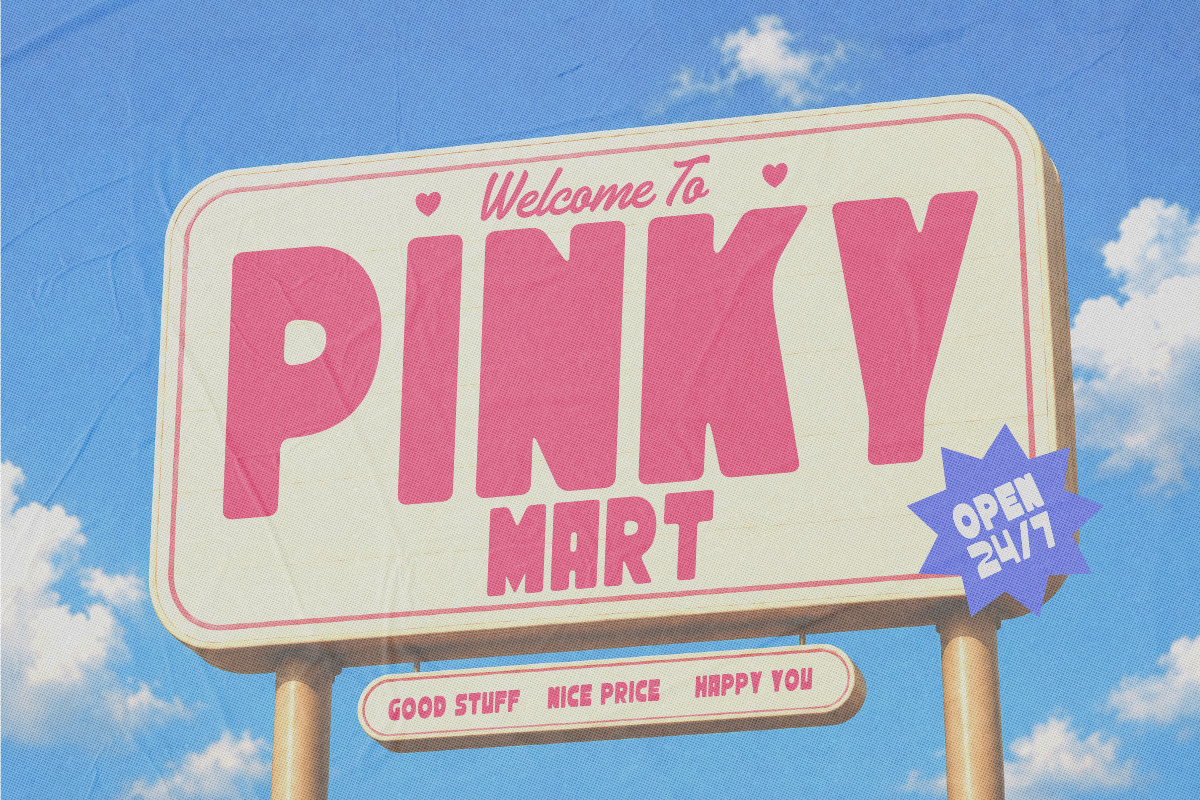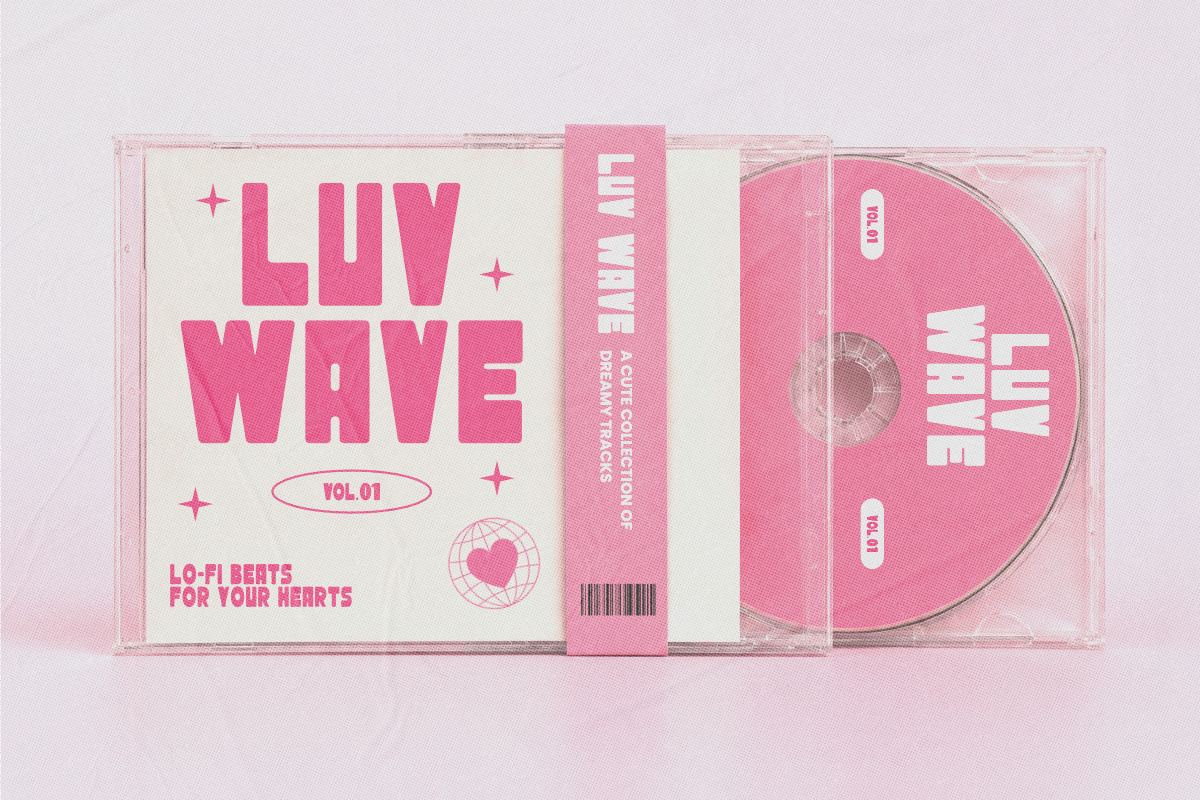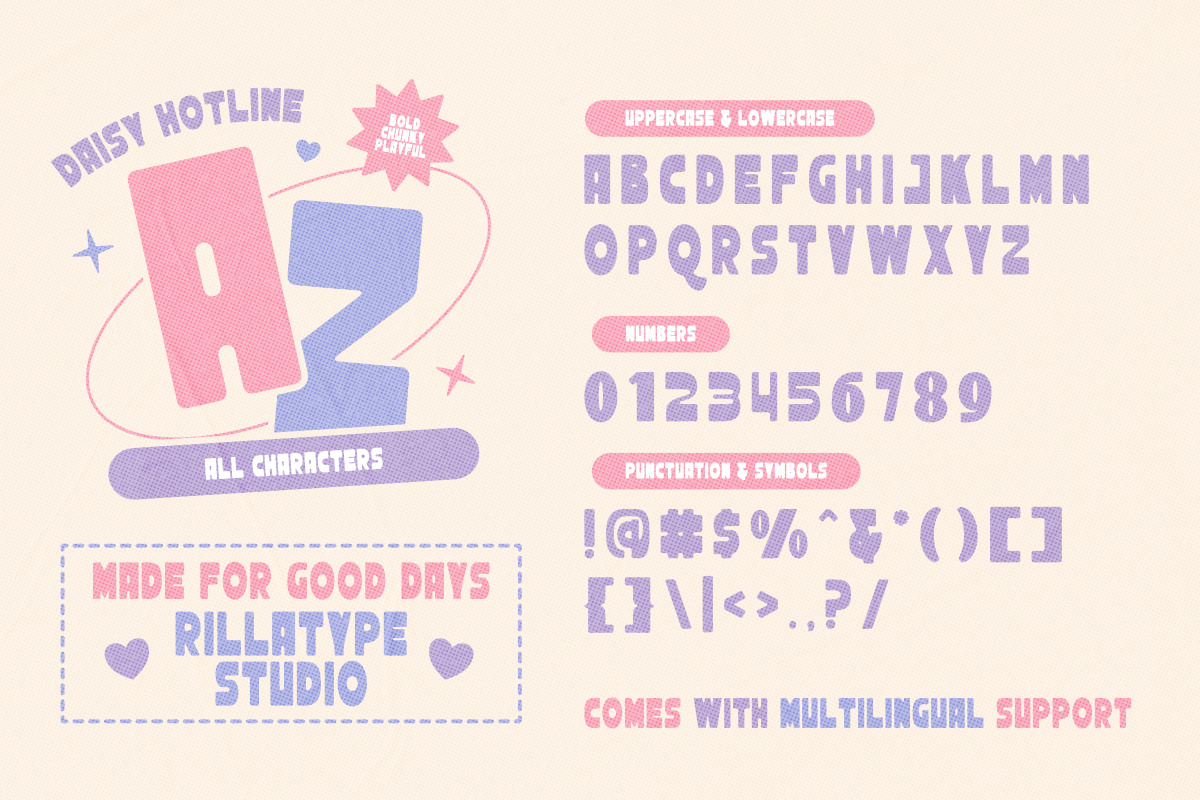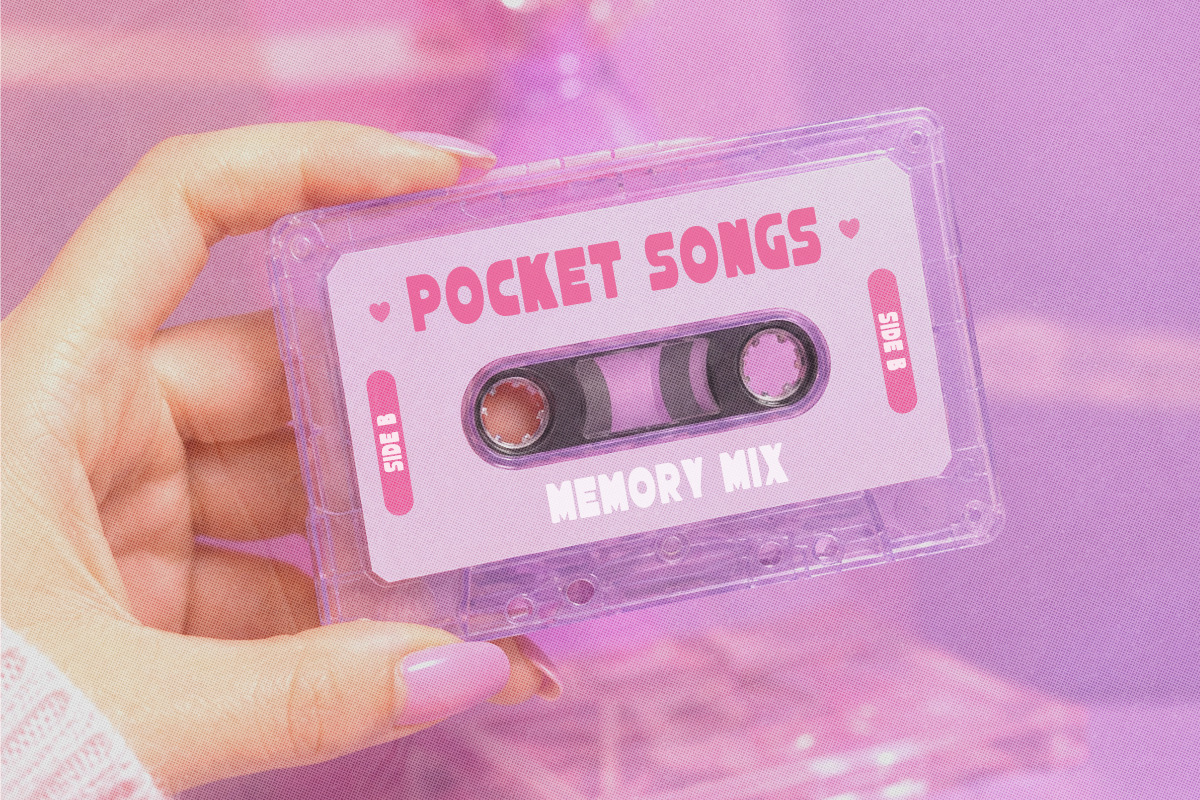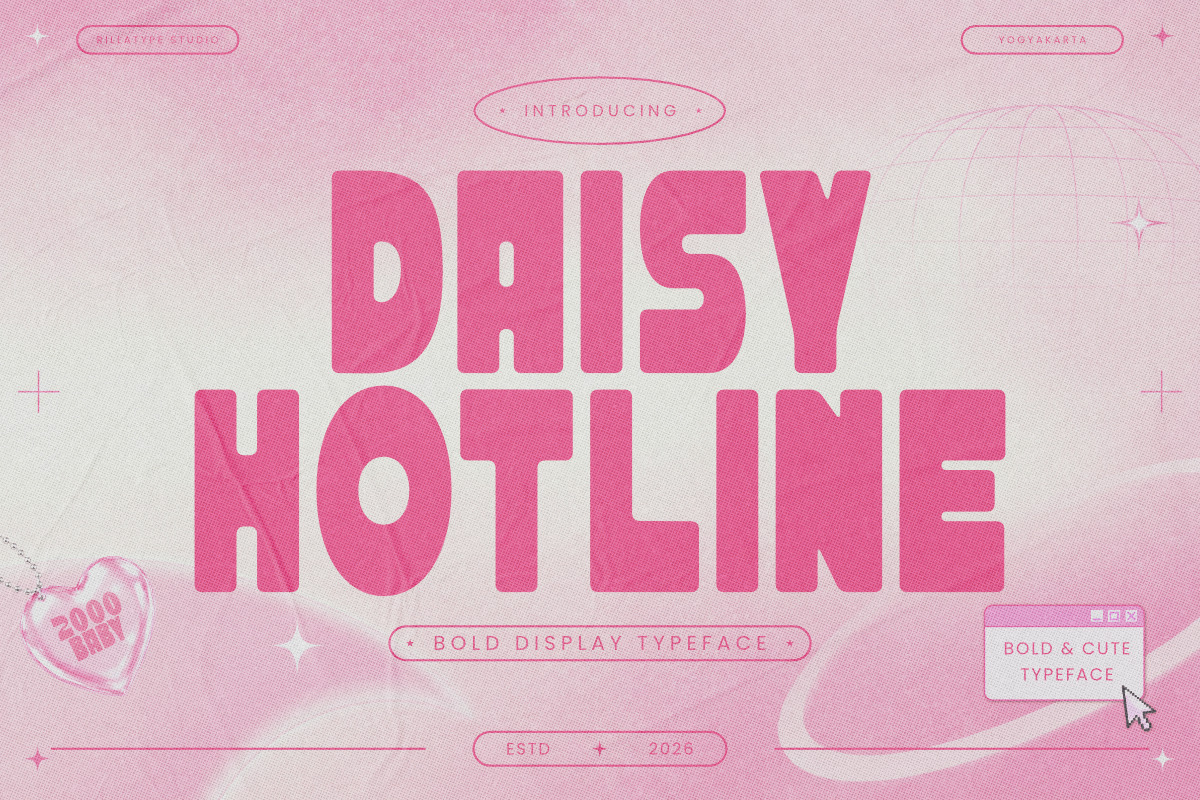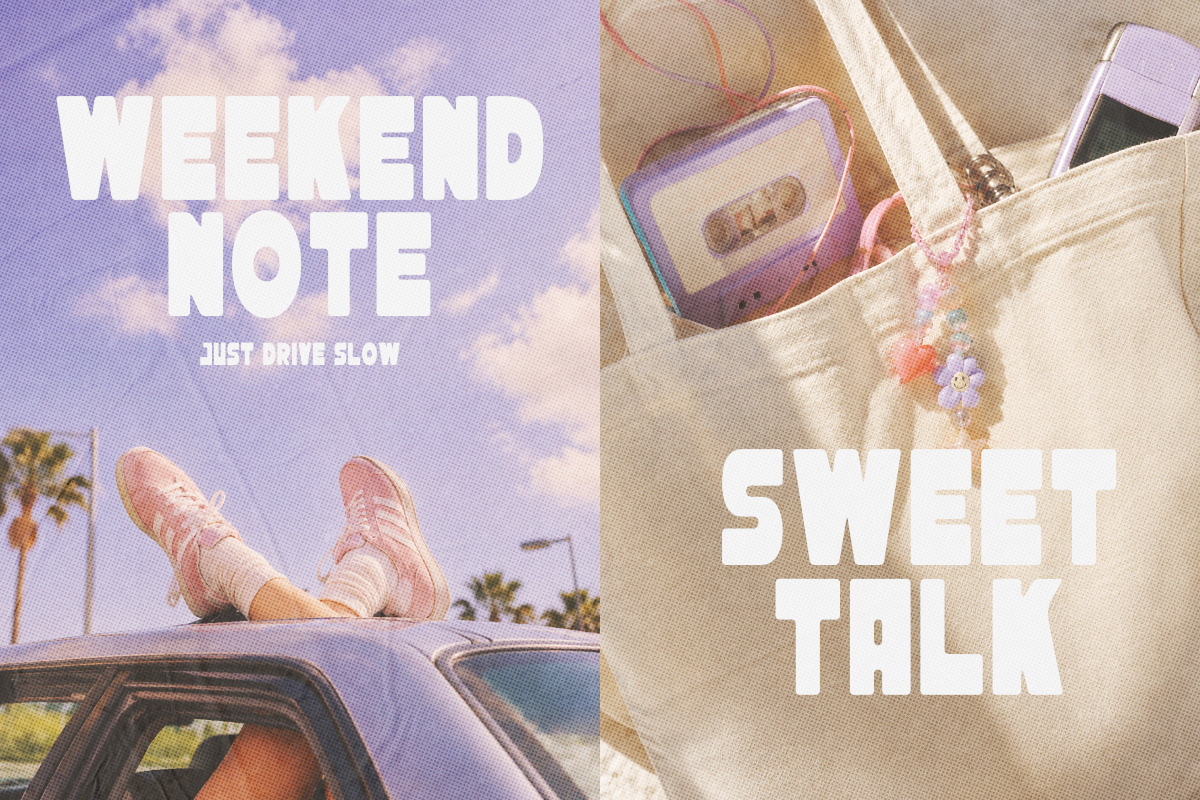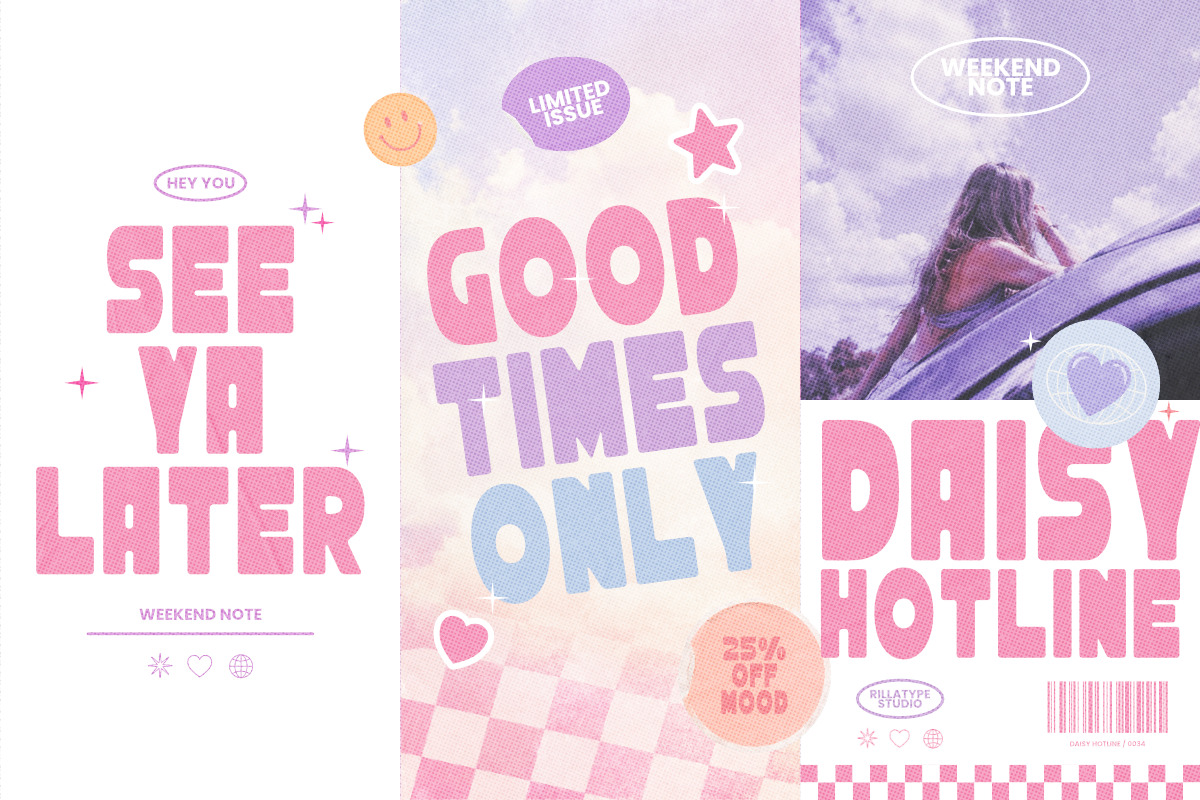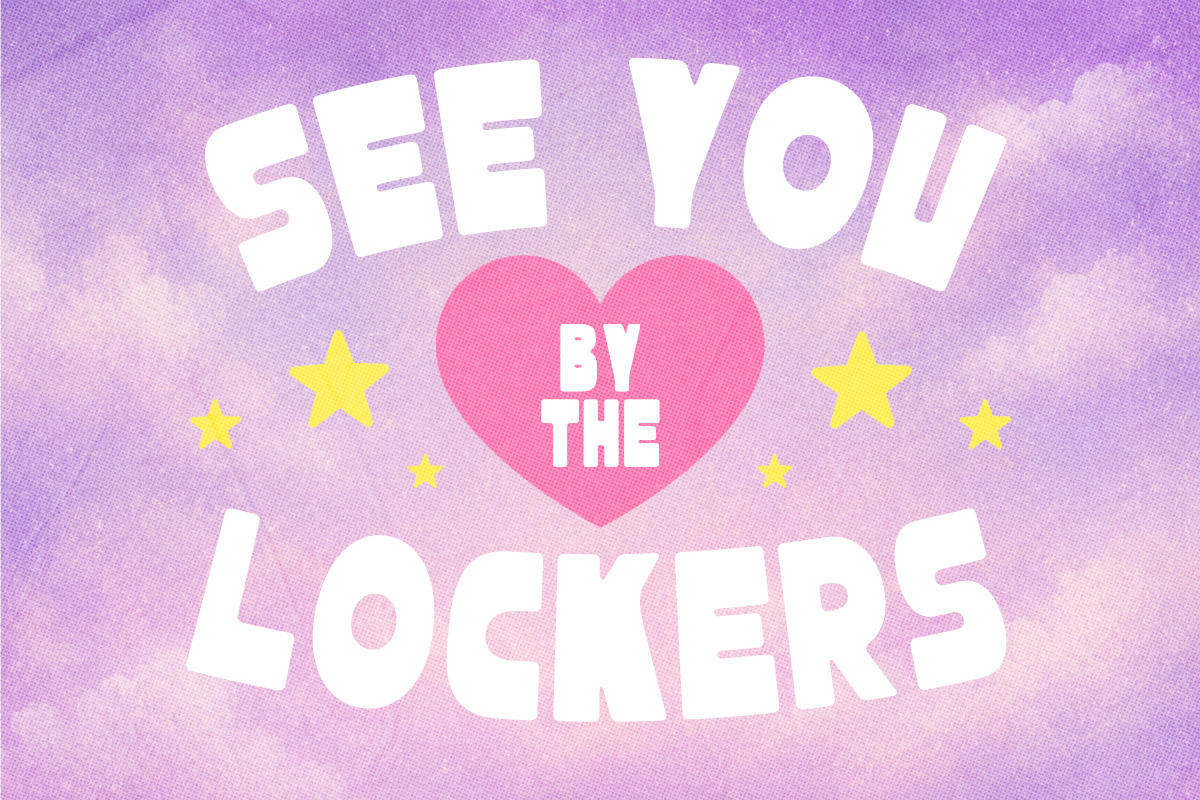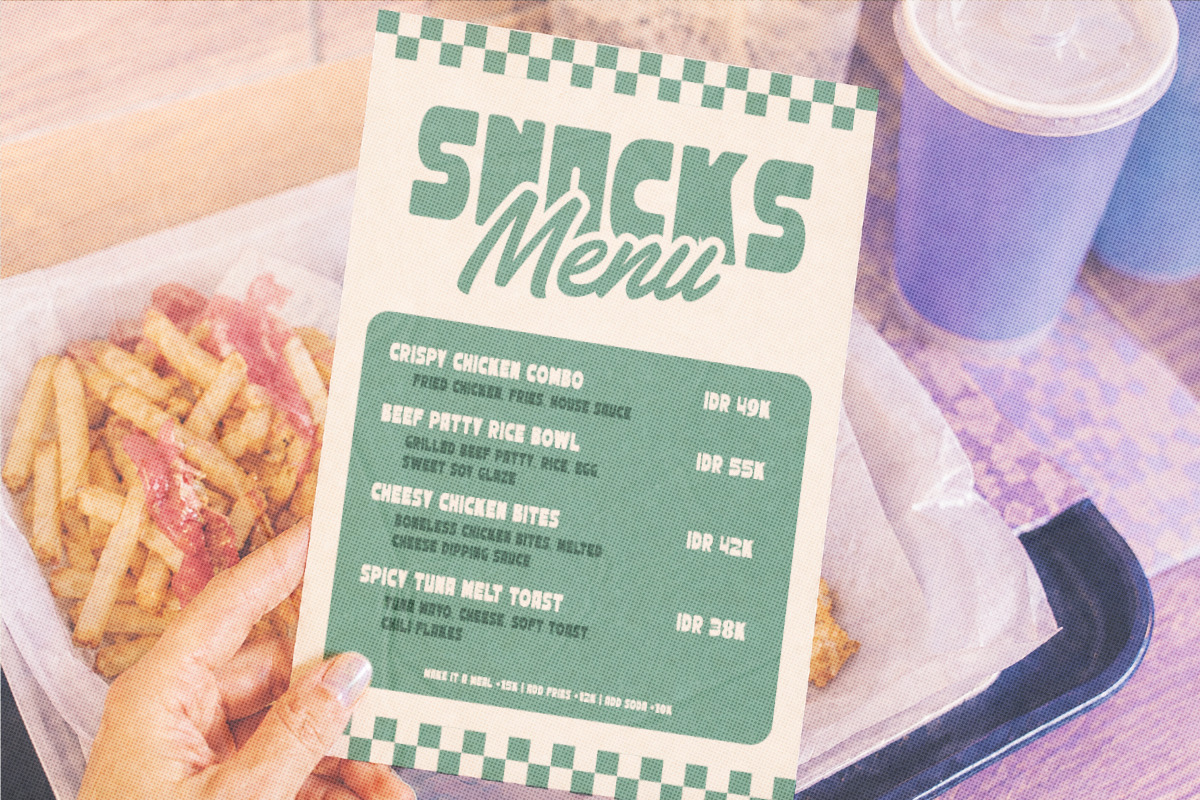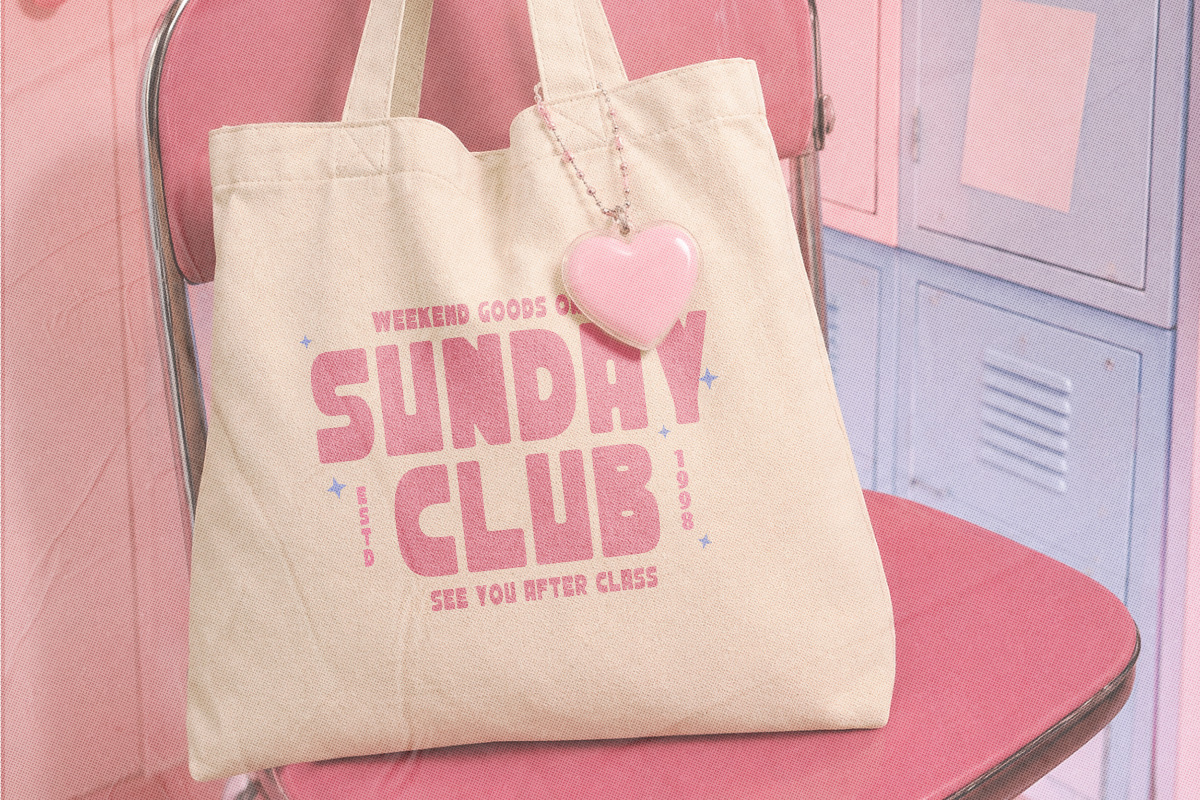
Daisy Hotline - Retro Display Font
Daisy Hotline is a cute retro display font with bold, playful letterforms and a soft nostalgic personality. Inspired by dreamy pastel graphics, vintage snack packaging, teen pop merch, cassette labels, and cheerful storefront signs, this font is made to bring a sweet and friendly mood into your designs.
Its chunky shape, rounded details, and fun rhythm make it perfect for branding, posters, packaging, social media graphics, product labels, stickers, merchandise, café menus, greeting cards, and playful editorial layouts. Daisy Hotline works especially well for designs that need a retro, feminine, pop, Y2K, or cute nostalgic feeling.
Use it for bold headlines, logo concepts, display text, and eye-catching compositions. Whether you are creating a dreamy boutique brand, a cute diner menu, a music-inspired graphic, or a pastel product showcase, Daisy Hotline adds a warm, charming, and memorable touch.